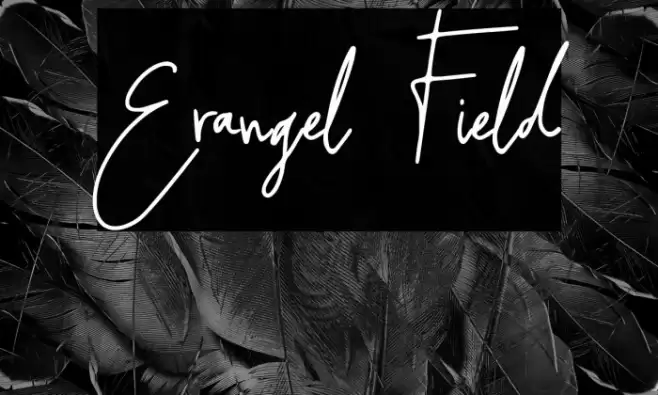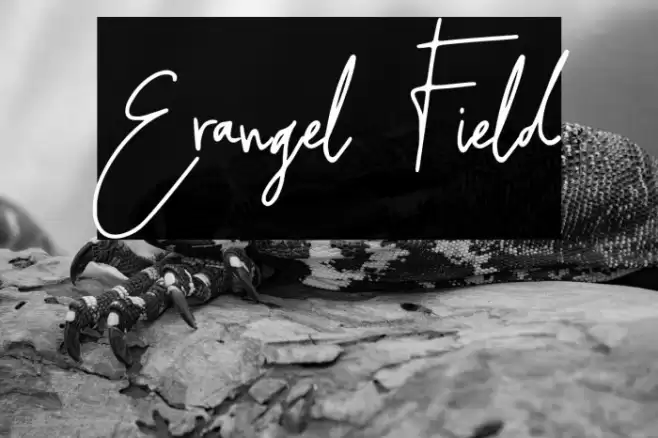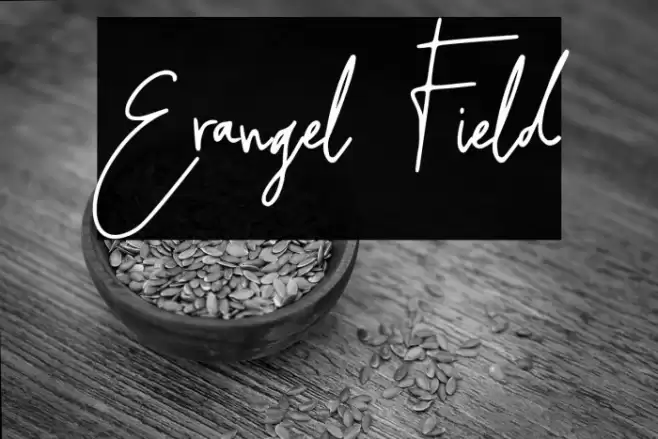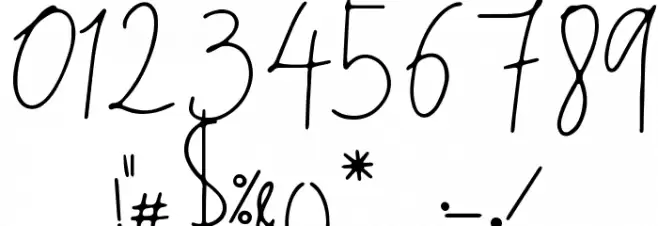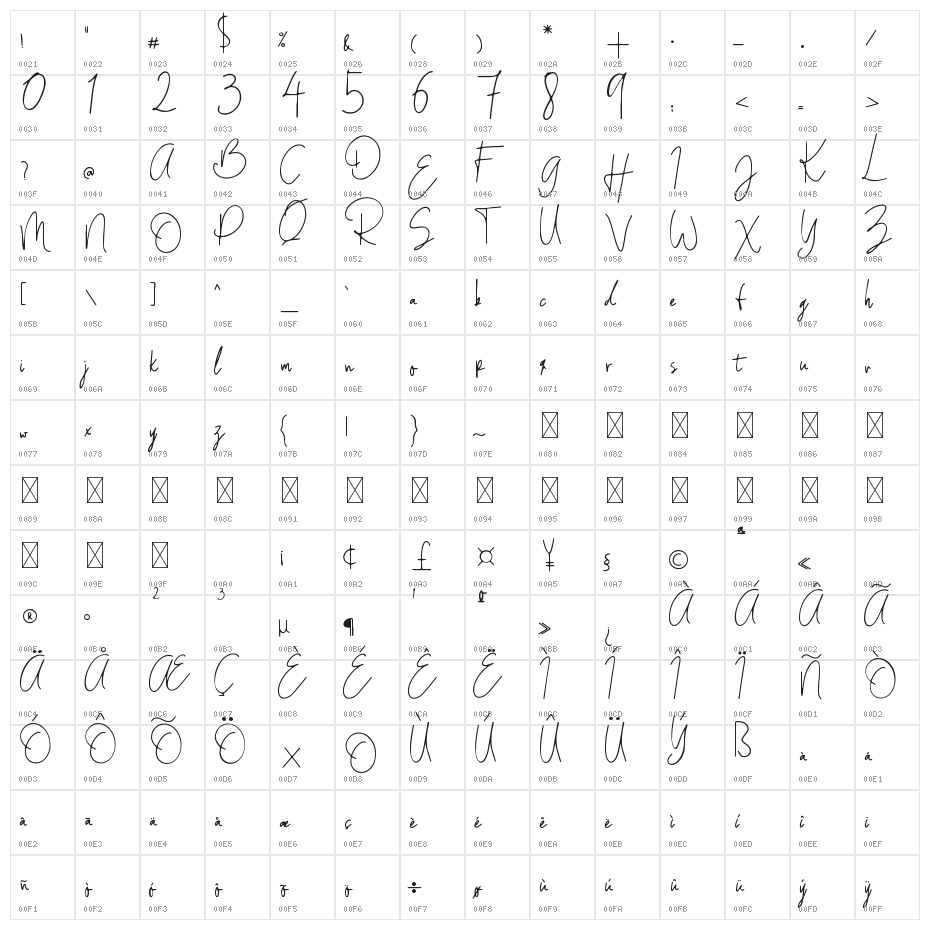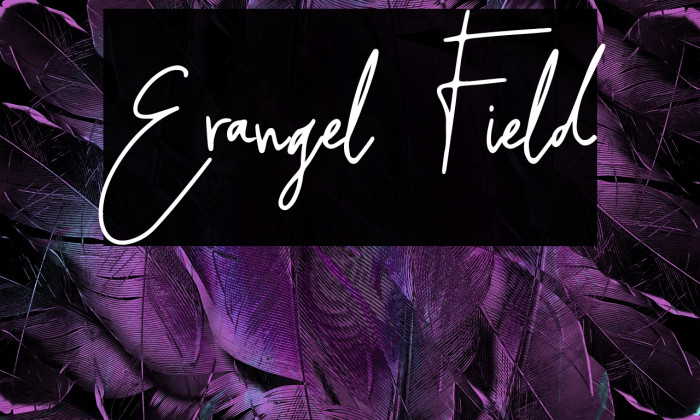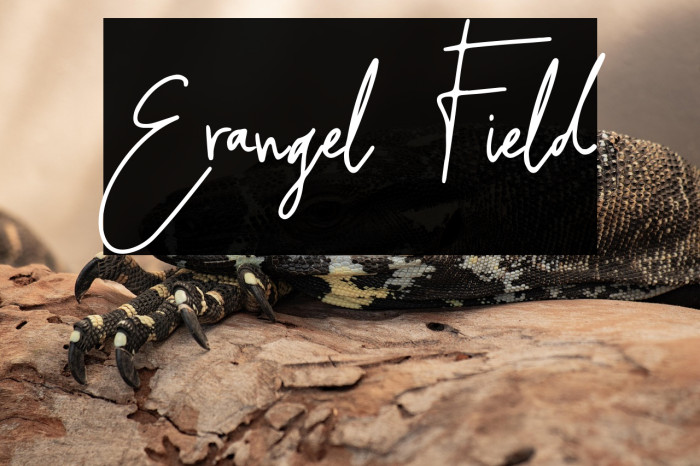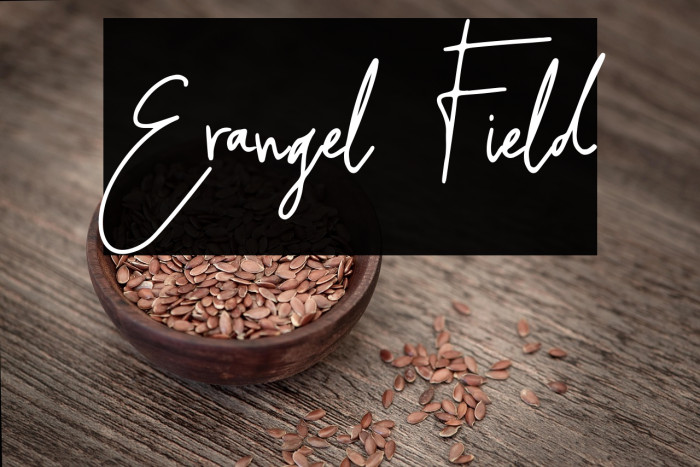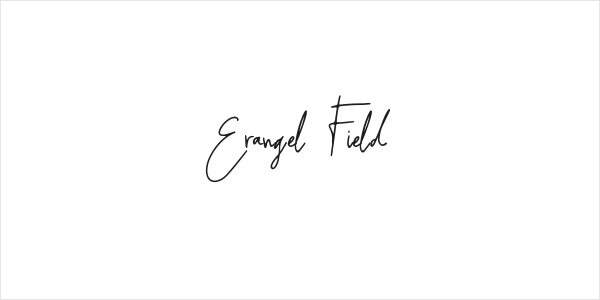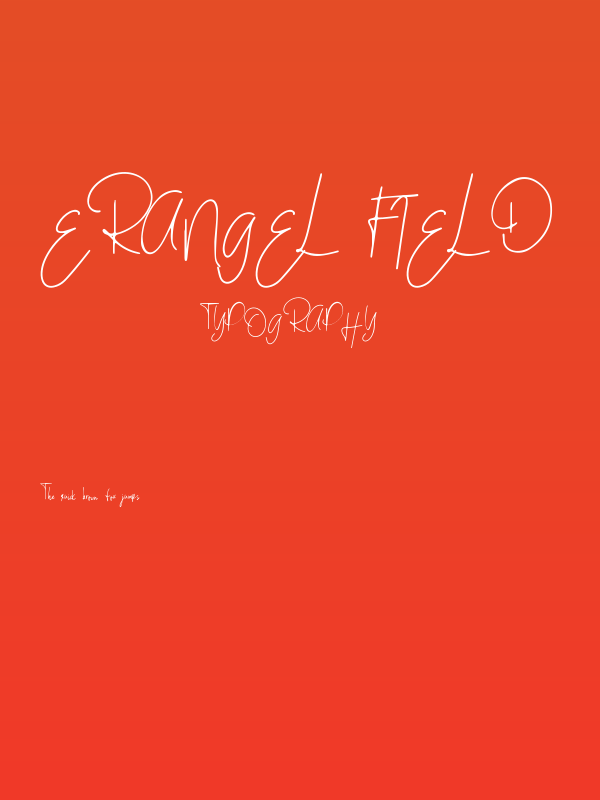
Erangel Field Font
Erangel Field Description
This font features a playful and casual handwritten style, characterized by its loose and flowing strokes. The uppercase letters are tall and slightly irregular, giving a sense of spontaneity and creativity. The lowercase letters maintain a consistent flow, with some letters connecting in a cursive manner. Numbers are bold and dynamic, matching the overall energetic feel of the font. Special characters are uniquely styled, adding to the font's quirky personality. This font is ideal for projects that require a personal touch or a sense of informality.
A playful, handwritten font with flowing strokes and a casual style from Regular fonts.
- Font: Erangel Field
- Proposed Projects: Great for greeting cards, personal blogs, creative posters, and informal branding.
- Overall Style: Casual, Playful
- Use Case: Logos, Posters, Greeting Cards